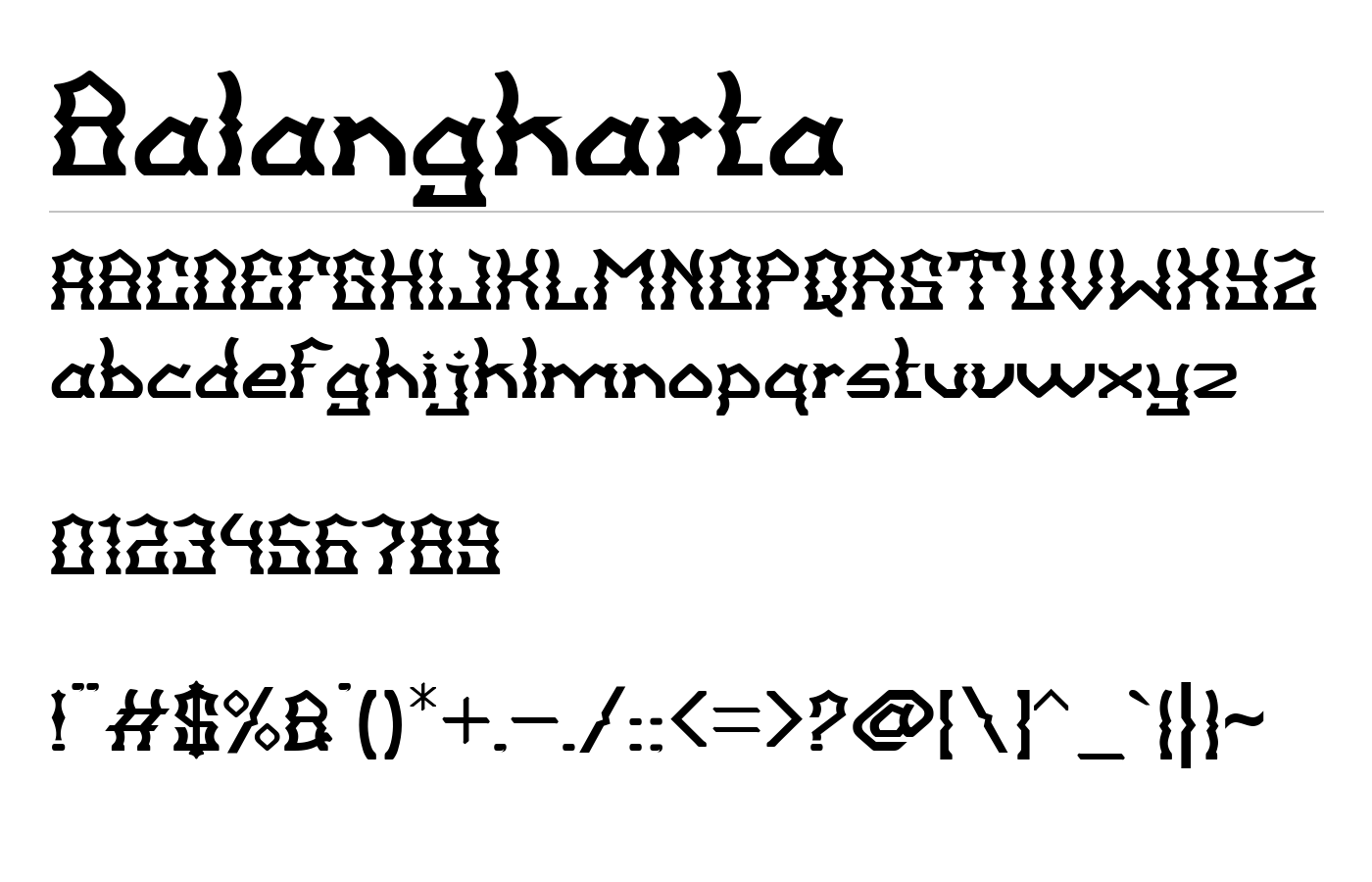
Balangkarta is a distinctive display serif font with a strong, angular design and a bold, geometric feel. Its sharp, bracketed serifs and intricate letterforms give it an ornamental, vintage vibe, making it ideal for eye-catching headlines, logos, or creative projects that seek a unique and artistic touch. This font works well in branding or editorial designs where personality and a handcrafted appearance are key.
Balangkarta Font